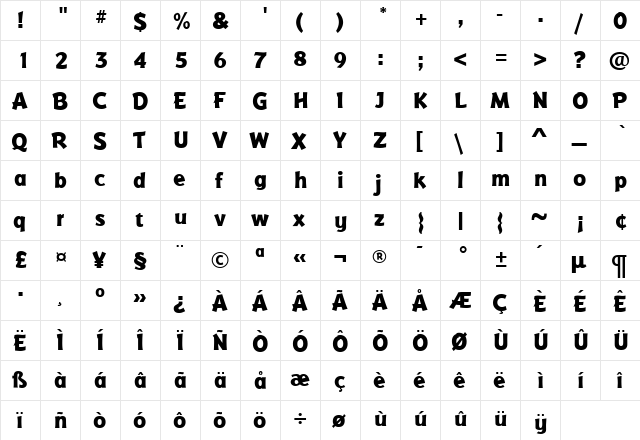
BadgerExtraBold Roman
Design Context for BadgerExtraBold Typeface
BadgerExtraBold takes a measured approach to typography — its balanced proportions and neutral character make it a reliable workhorse for both digital and print work. The heavy weight commands attention and anchors typographic hierarchies.